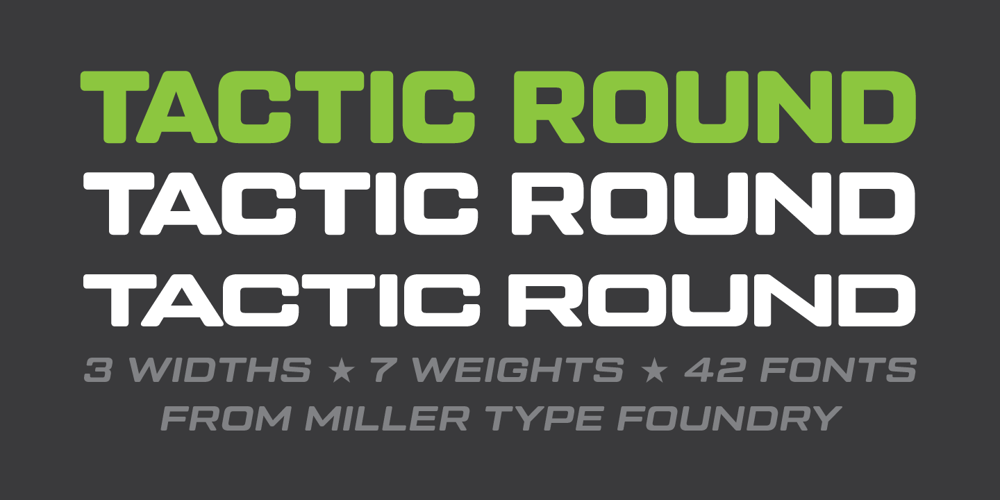
Tactic Round Font Family was designed by Richard Miller and published by Miller Type Foundry. Tactic Round contains 42 styles and family package options. Tactic Round is the softer cousin to Tactic Sans. Seven weights times three widths, all with italics, means that Tactic Round has forty-two options to make every design accomplish its mission. From technology to sports, posters to email blasts, Tactic Sans works for almost any project. Tactic Sans supports extended Latin alphabets as well as Cyrillic alphabets. Opentype accessories include: Alternate Characters, Tabular Lining Figures, Ligatures (including symbol ligatures), Numerators (including $¢£€¥ƒ#%) Denominators Superscript & Subscript, Fractions and more!